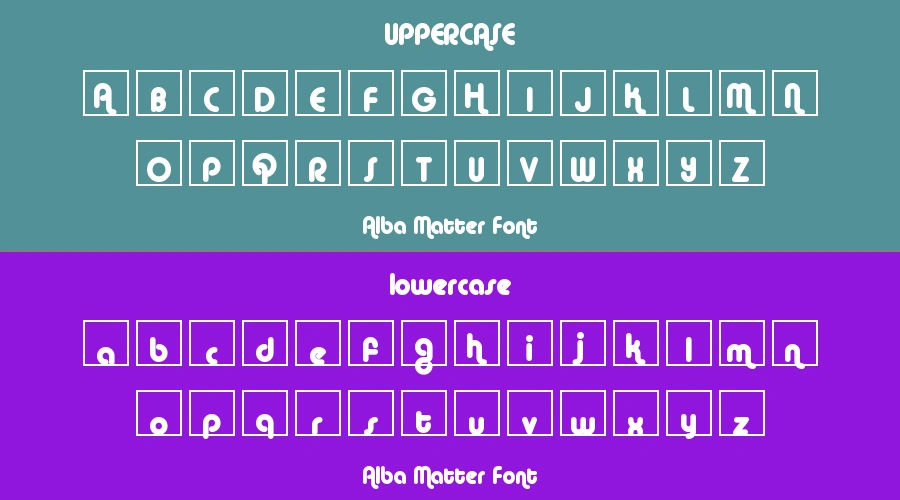
About Alba Matter Font
Alba Matter Font embodies typographic excellence through its masterful combination of convex bowls and artistic impact. Created for magazine layout, this typeface delivers exceptional functionality and market relevance across all applications. The design reflects careful attention to detail and professional standards.
Advanced capabilities include distinctive ink traps and versatile arbitrary fractions, giving designers creative control. When used in sidebars, Alba Matter Font exhibits remarkable small text clarity. The harmonious balance between corner treatment and contemporary relevance sets this typeface apart.